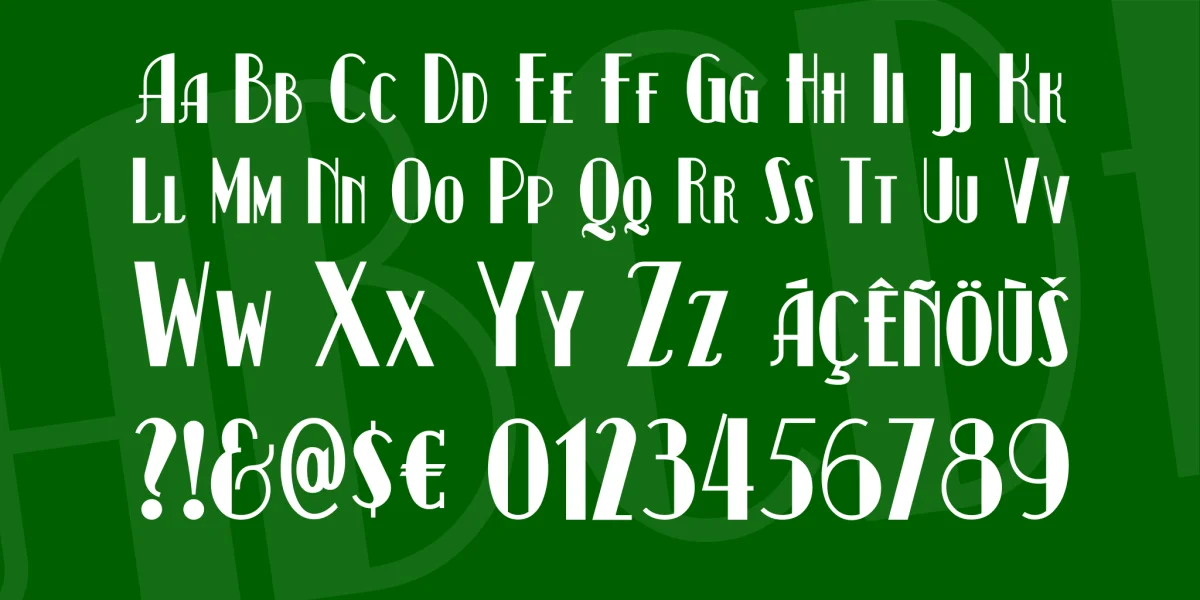
Seen on a poster for a Claudette Colbert film entitled She Married Her Boss (imagine that!), this font has a lot of long-legged charm and curvy grace, not unlike the film’s star. You can find the poster in question, and many more, in Reel Art: Great Posters from the Golden Age of the Silver Screen.